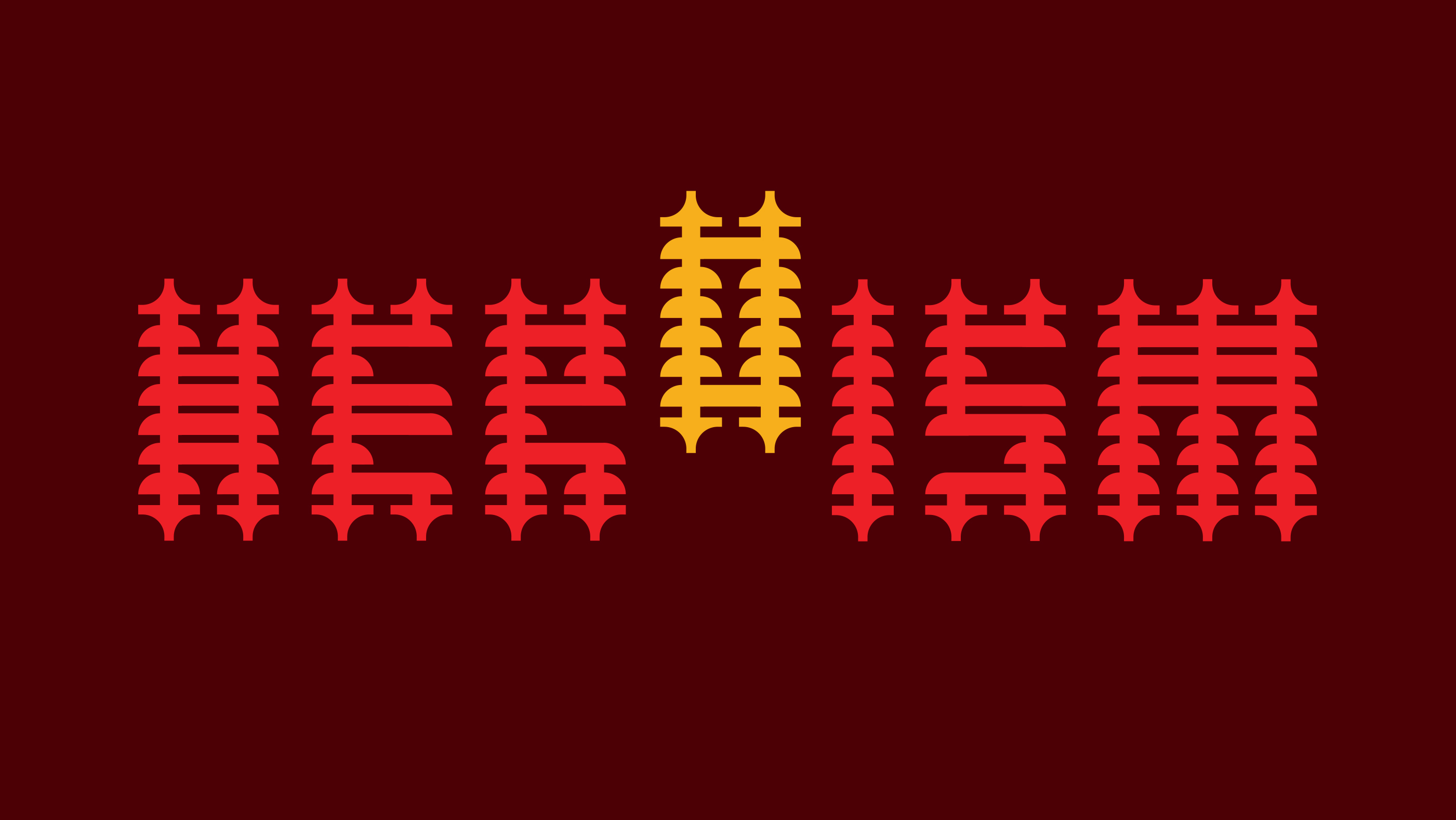
Heroism
One letter stands out from the crowd, representing a true hero. Using a layered technique, the arrow shape moves in two vertical directions, creating a confident and powerful letterform.